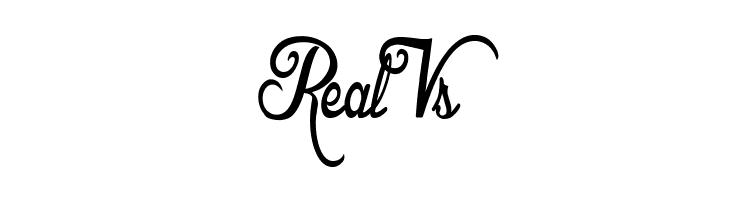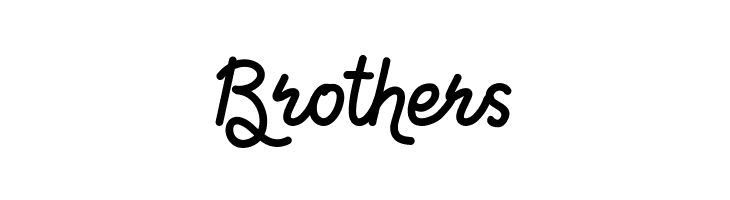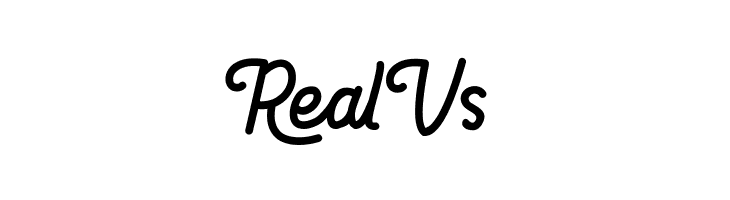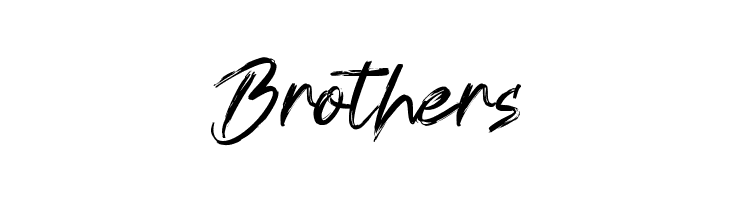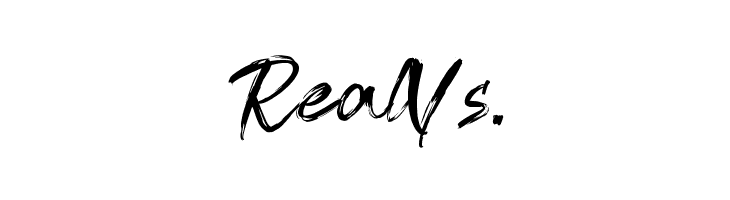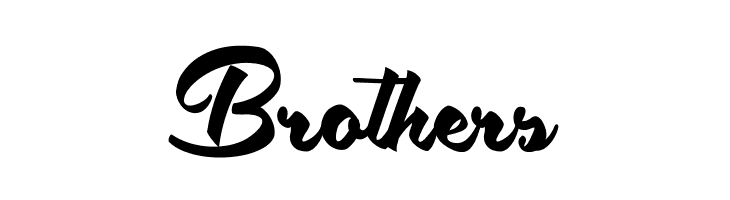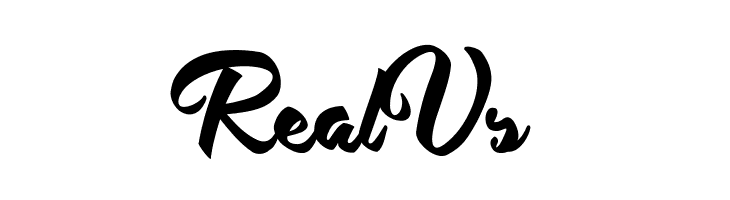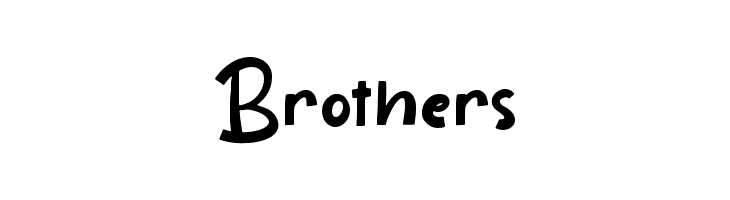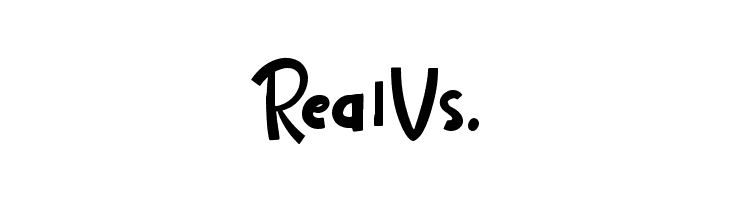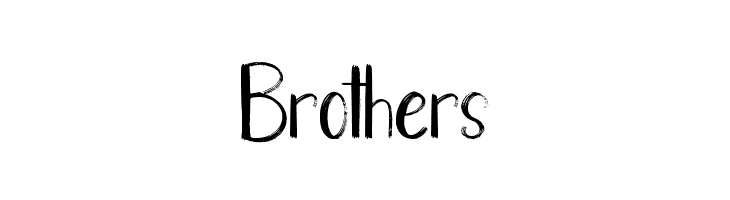
A playful, bold font with rounded strokes and a whimsical, retro-modern style.
A playful, handwritten script font with decorative elements and moderate stroke contrast.
A bold, graffiti-inspired font with a dripping paint effect.
A bold, dynamic script font with elegant loops and swashes.
A bold, fiery font with jagged, flame-like edges and a dynamic, energetic style.
A bold, jagged font with a distressed, grunge-like appearance.
A bold, jagged font with an edgy, distressed appearance.
A bold, vintage serif font with decorative elements and shadow effects.
A bold, flame-adorned font perfect for dramatic and impactful designs.
A bold, vintage serif font with strong, condensed letters.
A bold, playful font with a hand-drawn, dynamic style.
An elegant script font with flowing, interconnected characters and bold uppercase letters.
A playful, bold, hand-drawn style font with rounded, thick letters.
A playful, handwritten script font with interconnected letters and moderate stroke thickness.
A bold, high-contrast font with sharp angles and modern geometric elements.
A bold, slanted font with a dynamic and energetic style.
A playful, bold outline font with a lively and casual aesthetic.
A playful, bold, and handwritten-style font with rounded strokes.
A bold, brush-style font with dynamic and expressive strokes.
A bold, decorative font with integrated flame motifs for a fiery appearance.
A playful, hand-drawn font with varied stroke thickness and a casual style.
A playful, hand-drawn font with irregular, organic shapes and varying stroke thickness.
A bold, textured font with a hand-drawn, sketch-like appearance.
A bold, textured font with diagonal lines for a modern, impactful look.
A decorative, Art Deco-inspired font with elongated, narrow letterforms and geometric elegance.
A bold, decorative font with vintage-inspired flourishes and artistic elements.
A bold, rounded font with a modern and playful aesthetic.
A bold, rounded font with a playful and retro vibe.